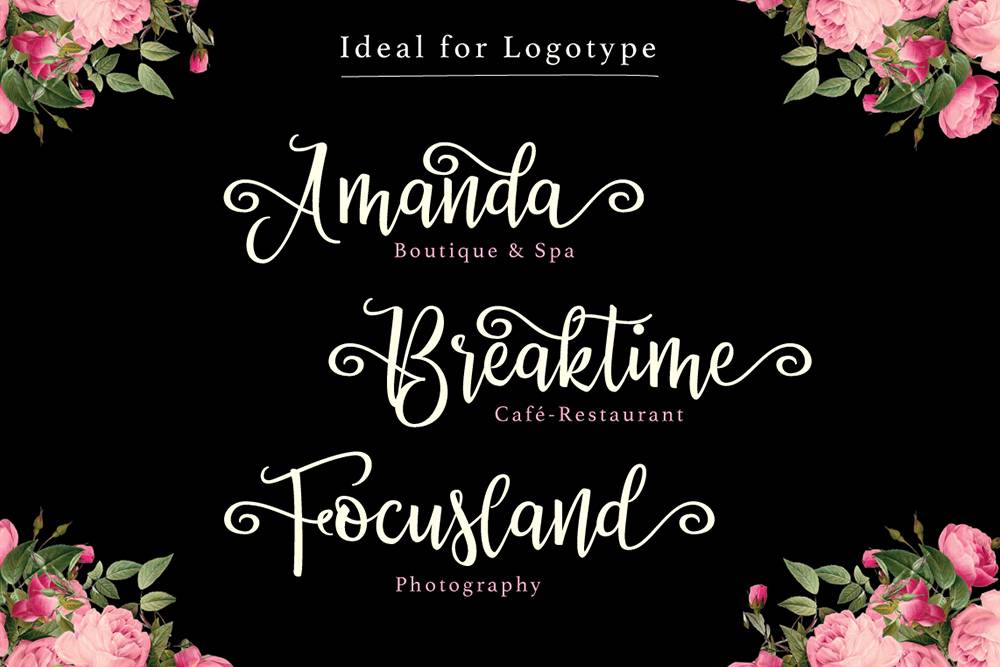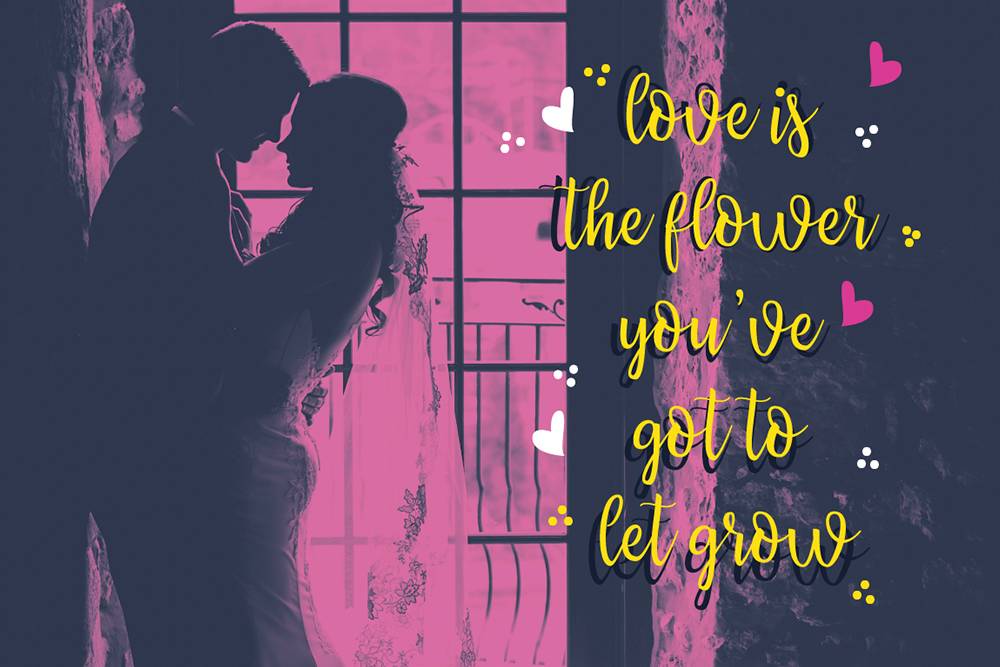
Priscilla Script is an elegant and graceful script font characterized by delicate, flowing letterforms with a hand-drawn feel. Its slender strokes and subtle curves evoke a refined, feminine personality, making it perfect for invitations, branding, and projects that require a sophisticated yet approachable touch. This font works beautifully in logos, wedding stationery, and any design where a stylish, personal flair is desired.
Priscilla Script Typeface
About Priscilla Script Typeface